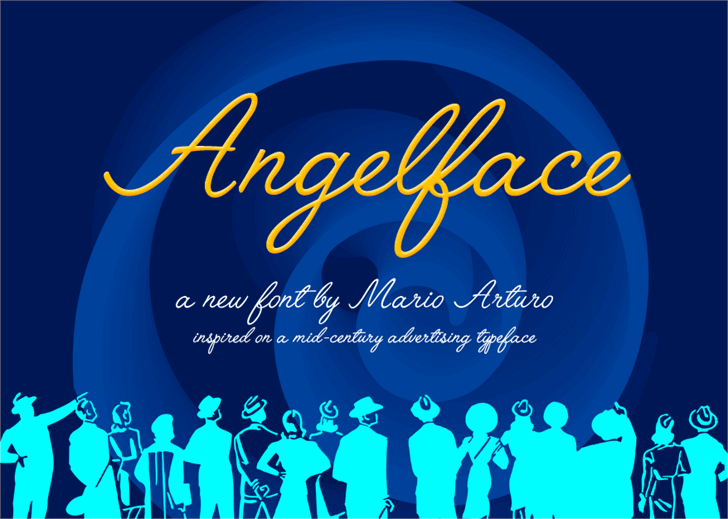
Free Angelface Font
Take a look at this eye-watering free angelface font. Font Space has created this amazing and beautiful font. Showcase your designs like a graphic design pro by adding a new touch with this cool font.